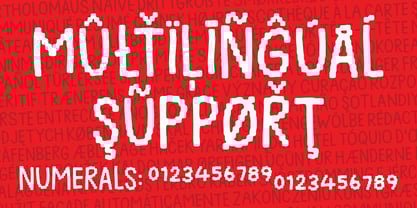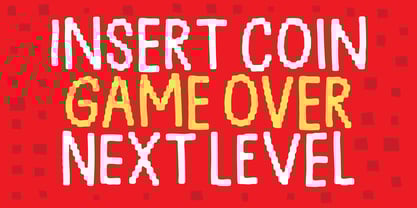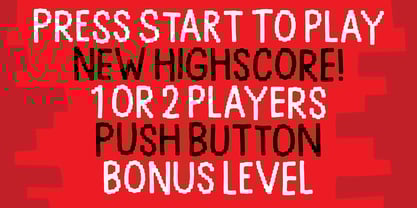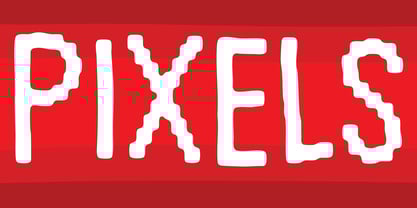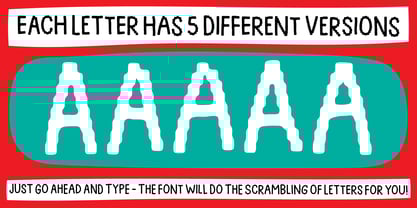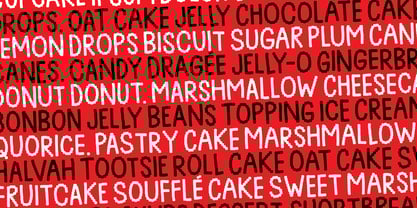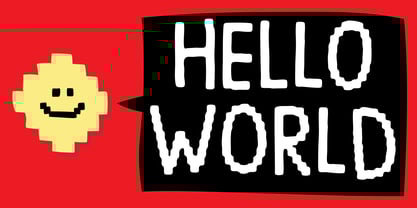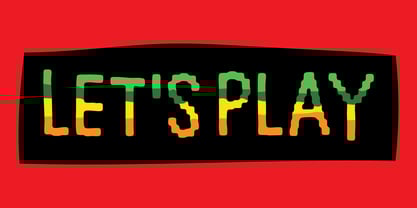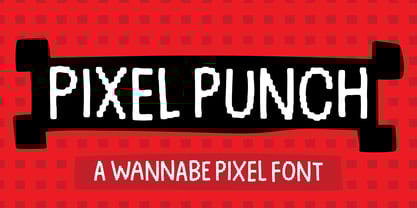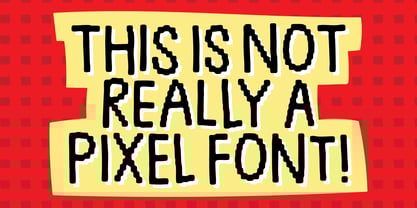
Pixel Punch
by PizzaDude.dk
The Pixel Punch Font Family was designed by Jakob Fischer and published by PizzaDude.dk. Pixel Punch contains 2 styles and family package options. More about this family
Pixel Punch is a weird hybrid between a pixel font and handwriting. To be more precise, I would describe it as a handwritten blurred pixel font. The spacing is quite wide, in an attempt to mimic the monospaced pixelfonts of the 80ies, without really being monospaced.
If you ever need something for a project that oozes of retro gaming, but with a slightly more fresh expression, Pixel Punch should be your choice! I have added 5 different versions of each letter - pick your favourite ones, or let the Contextual Alternates do the automatic scrambling of letters for you!